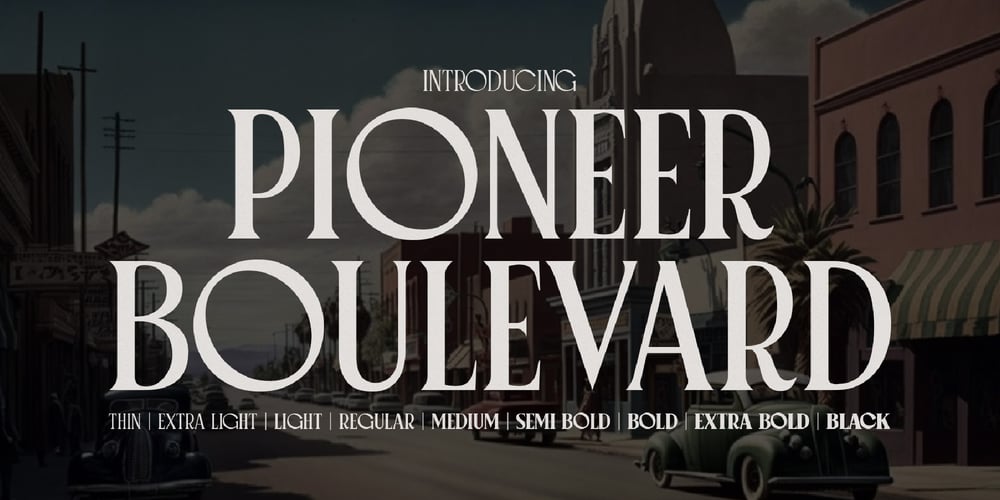
Pioneer Boulevard
Pioneer Boulevard font
Pioneer Boulevard Font Family was designed by Igor Ovsyannykov and published by Hipfonts. Pioneer Boulevard contains 9 styles and family package options. Introducing Pioneer Boulevard, an elegant and vintage font that will transport you to a bygone era of sophistication and style. With 9 distinct weights to choose from, Pioneer Boulevard offers versatility and flexibility for any project, whether you’re designing a logo, creating a print advertisement, or crafting an elegant website.The font also comes with beautiful additional ligatures that add character and charm to your designs, elevating them from ordinary to extraordinary.